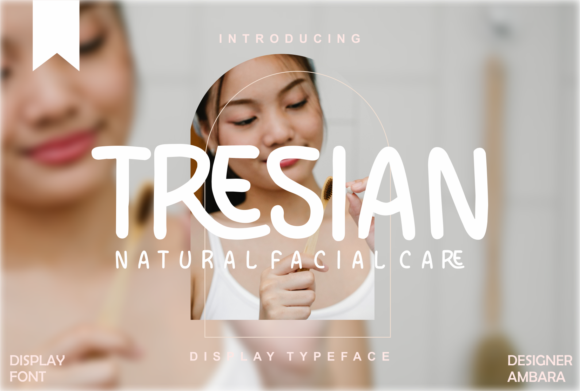
Prepare to embark on a typographic journey where elegance, charm, and boldness intertwine. Meet Tresian, the feminine display font that will captivate your designs with its sleek style. Carefully crafted by Ambara_studio, Tresian is not just a font; it's a gateway to elevate your creative projects.
Designed to make a statement, Tresian exudes sophistication with its clean lines and graceful curves. Each letterform is meticulously shaped to convey a sense of luxury and refinement. Whether you're crafting logos, branding materials, or fashion magazine layouts, Tresian will add an undeniable touch of allure.
Imagine your beauty business branding adorned with Tresian's enchanting characters. The sleek lines will evoke a sense of elegance that will draw customers in, while the bold strokes will leave a lasting impression. Let Tresian be the voice of your brand, conveying your commitment to quality and style.
Step into the world of fashion magazines and let Tresian guide your readers through a visual feast. The charming curves and delicate details will create an immersive experience that captures their attention from the very first page. Every headline, quote, and caption will be imbued with a sense of sophistication that will leave your readers wanting more.
Tresian is not just a font; it's a versatile tool that adapts seamlessly to a multitude of design projects. Create eye-catching cosmetic product packaging that exudes luxury and allure. Design stunning posters and flyers that command attention from across the room. Unleash your creativity and let Tresian be your companion in creating designs that leave a lasting impact.